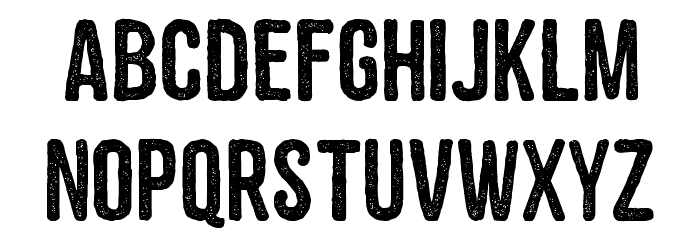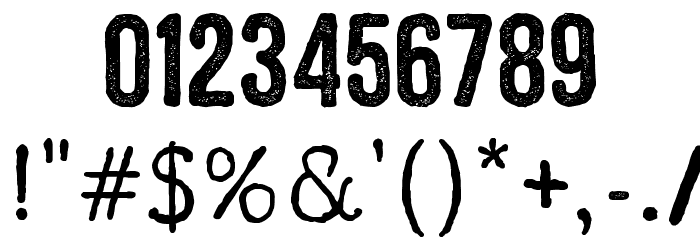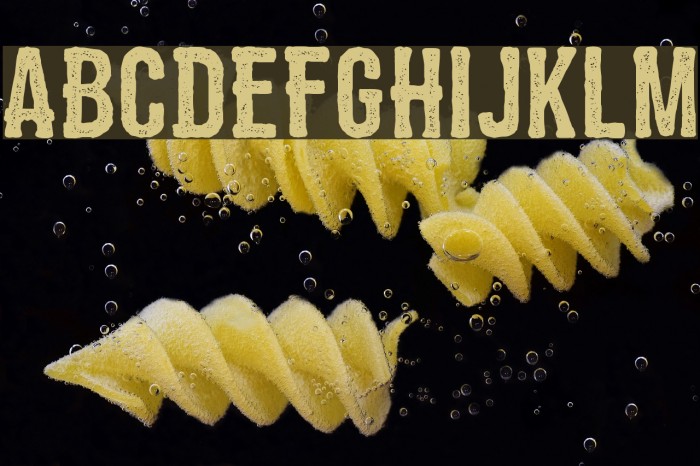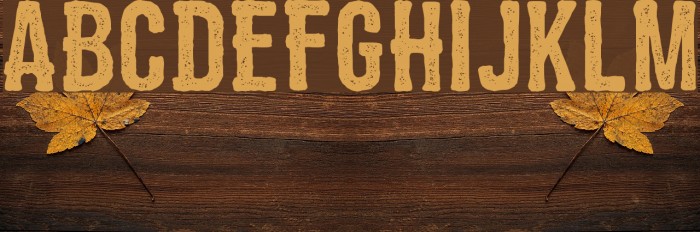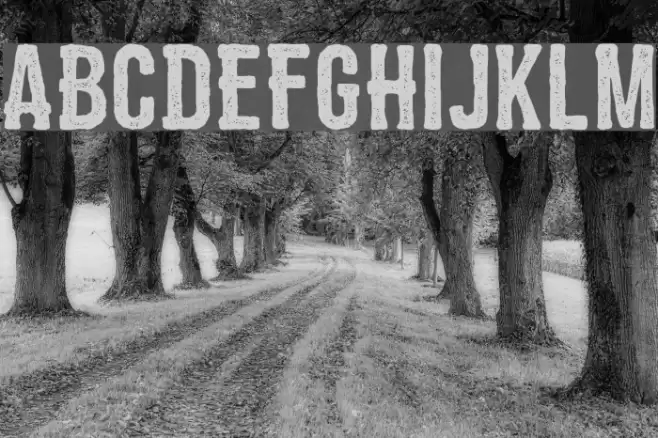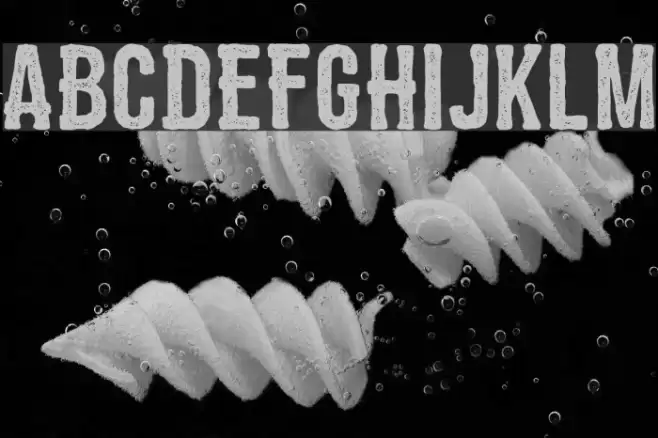
ZEMBOOD Vintage Font
This font exudes a vintage charm with its bold, textured appearance. Each character is designed with a distressed effect, giving it a rustic and weathered look. The uppercase and lowercase letters maintain a consistent style, with rounded edges and a slightly condensed form. The numbers and special characters follow the same aesthetic, ensuring a cohesive appearance across all glyphs. This font is perfect for projects that require a touch of nostalgia and a handcrafted feel.
A bold, textured vintage font with a distressed, rustic look.
- Proposed Projects: Ideal for vintage-themed posters, retro branding, rustic wedding invitations, and handcrafted product packaging.
- Overall Style: Vintage